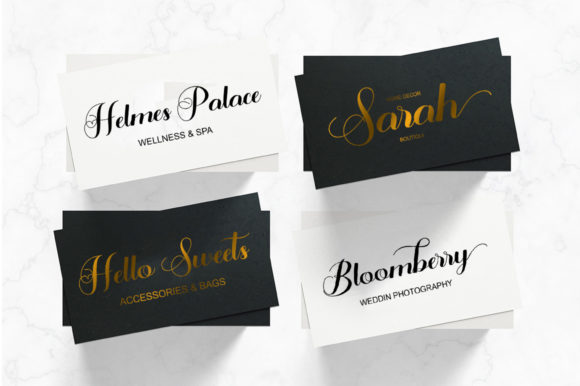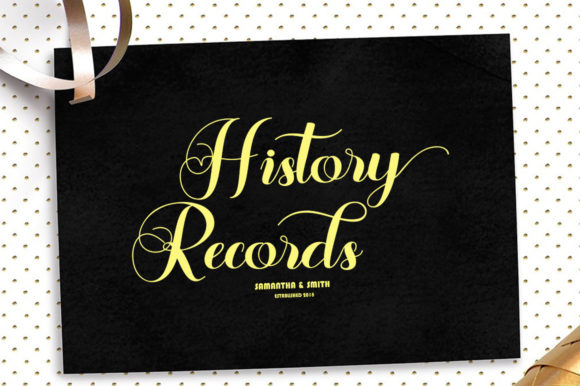
Butterfly Script Font
db-ku.com - Script & Handwritten -- The Butterfly is a modern calligraphy script. It has a trendy and feminine style and includes a fun irregular baseline. It’s perfect for wedding invitations, thank you cards, quotes, greeting cards, logos, business cards and more.